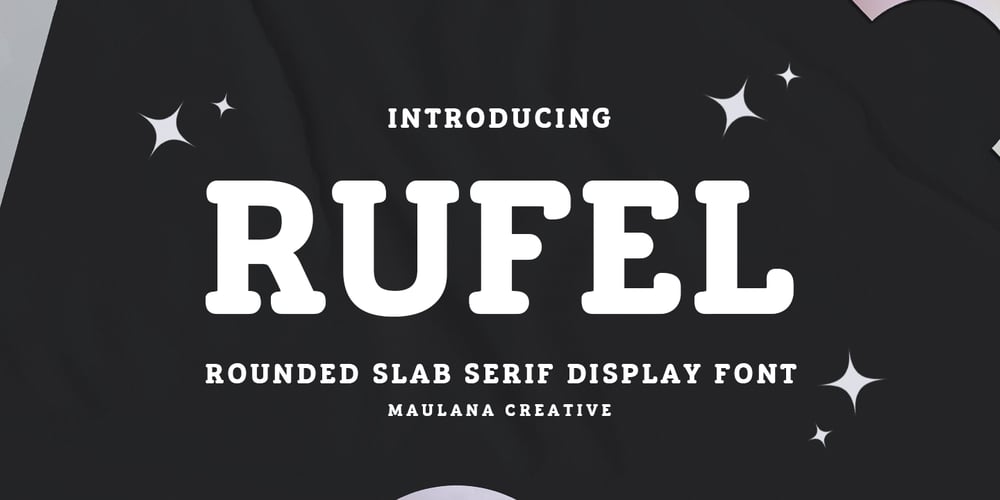
MC Rufel Font Family was designed by Gilang Maulana and published by Maulana Creative. MC Rufel contains 1 styles and family package options. Rufel is a rounded slab serif display font. With medium stroke, fun character with a bit of ligatures and alternates. To give you an extra creative work. Rufel font support multilingual more than 100+ language. This font is good for logo design, Social media, Movie Titles, Books Titles, a short text even a long text letter and good for your secondary text font with sans or script. Make a stunning work with Rufel font.Cheers,Maulana Creative